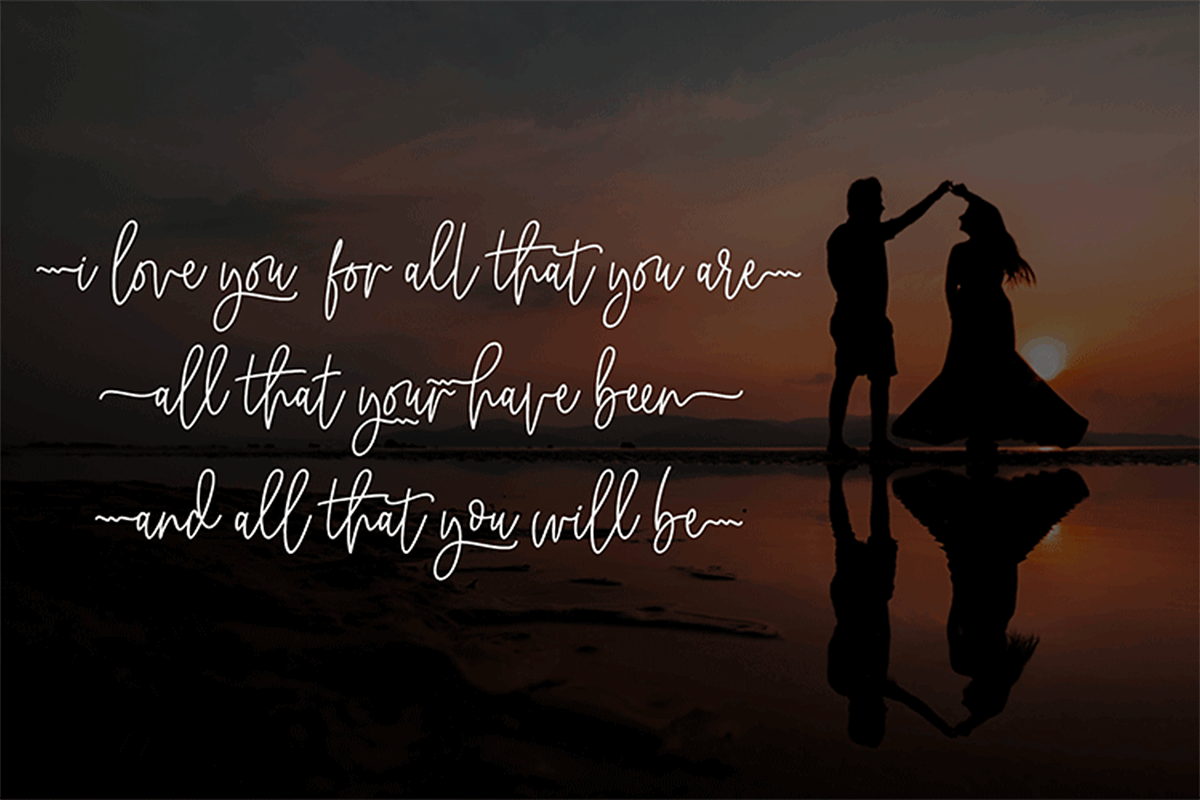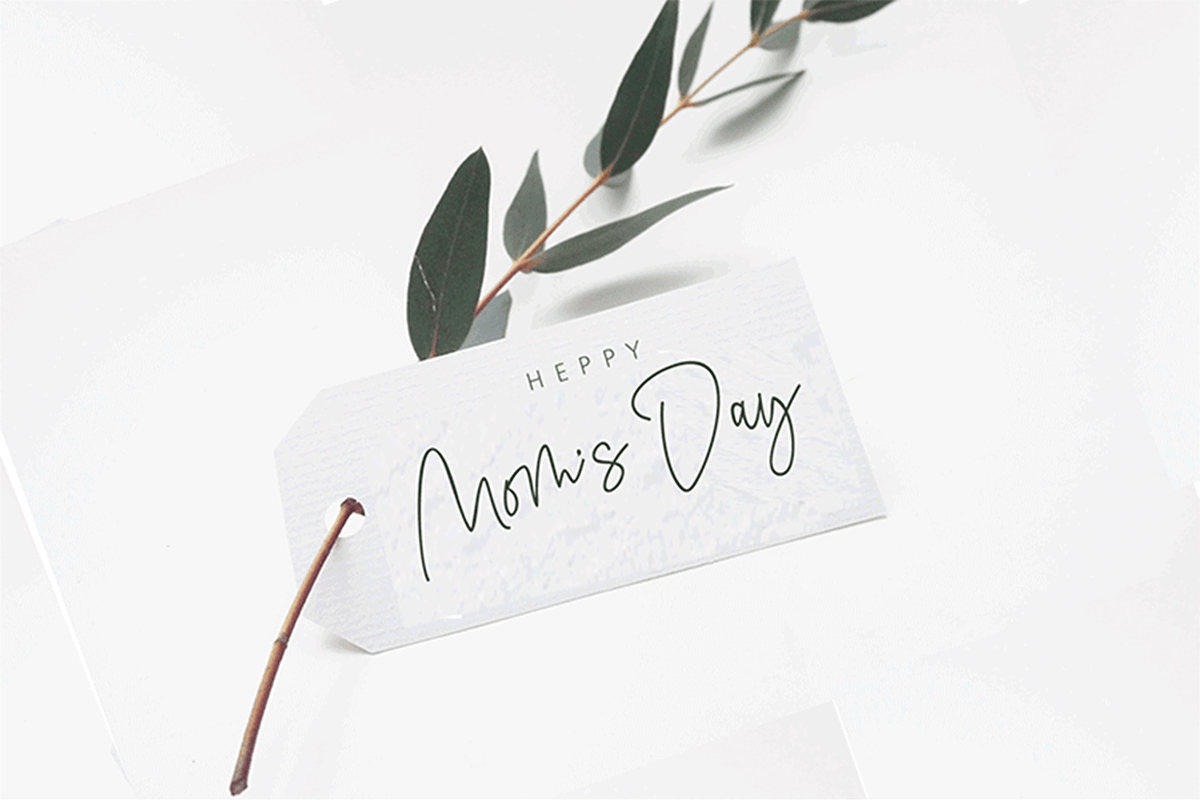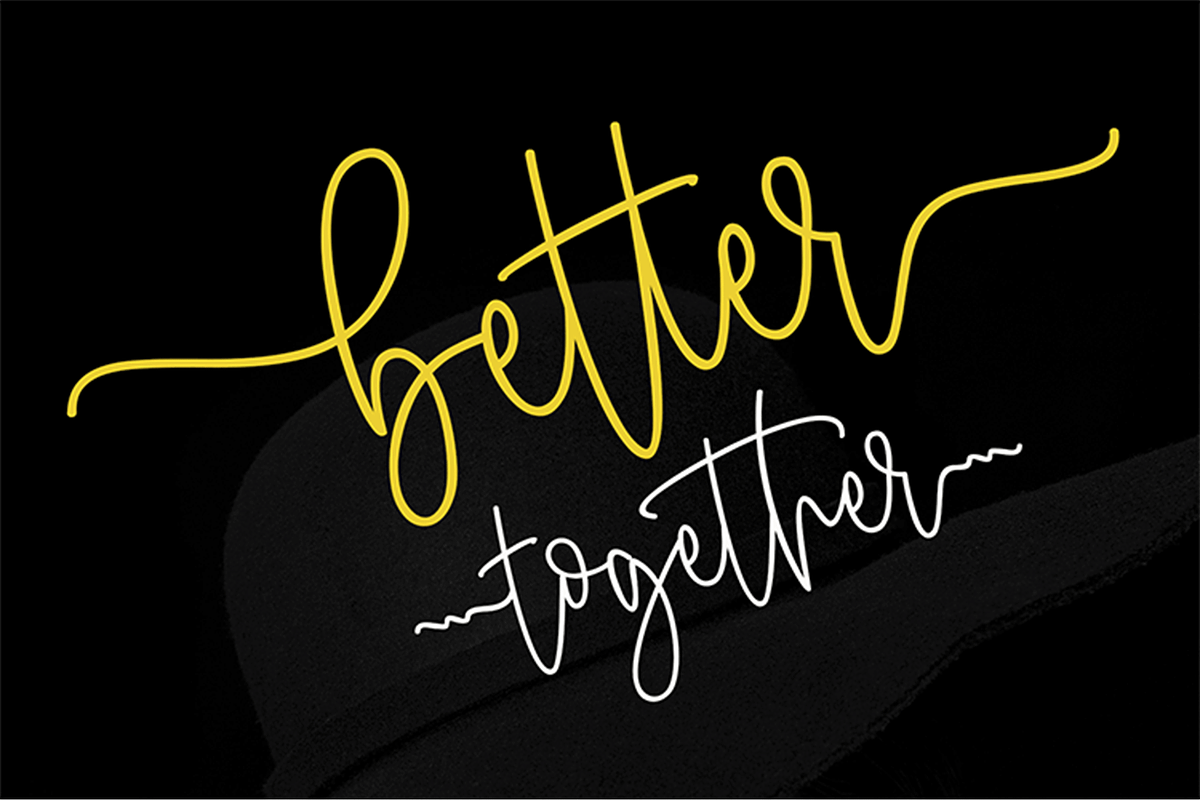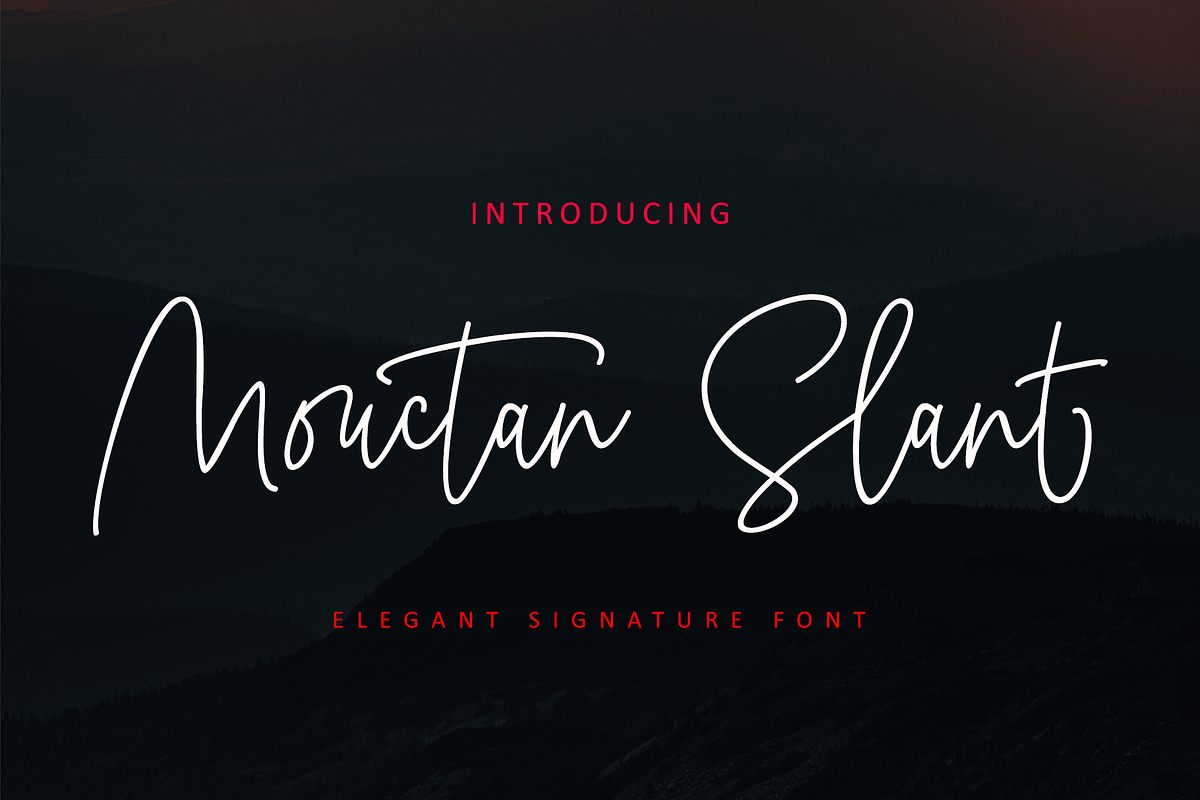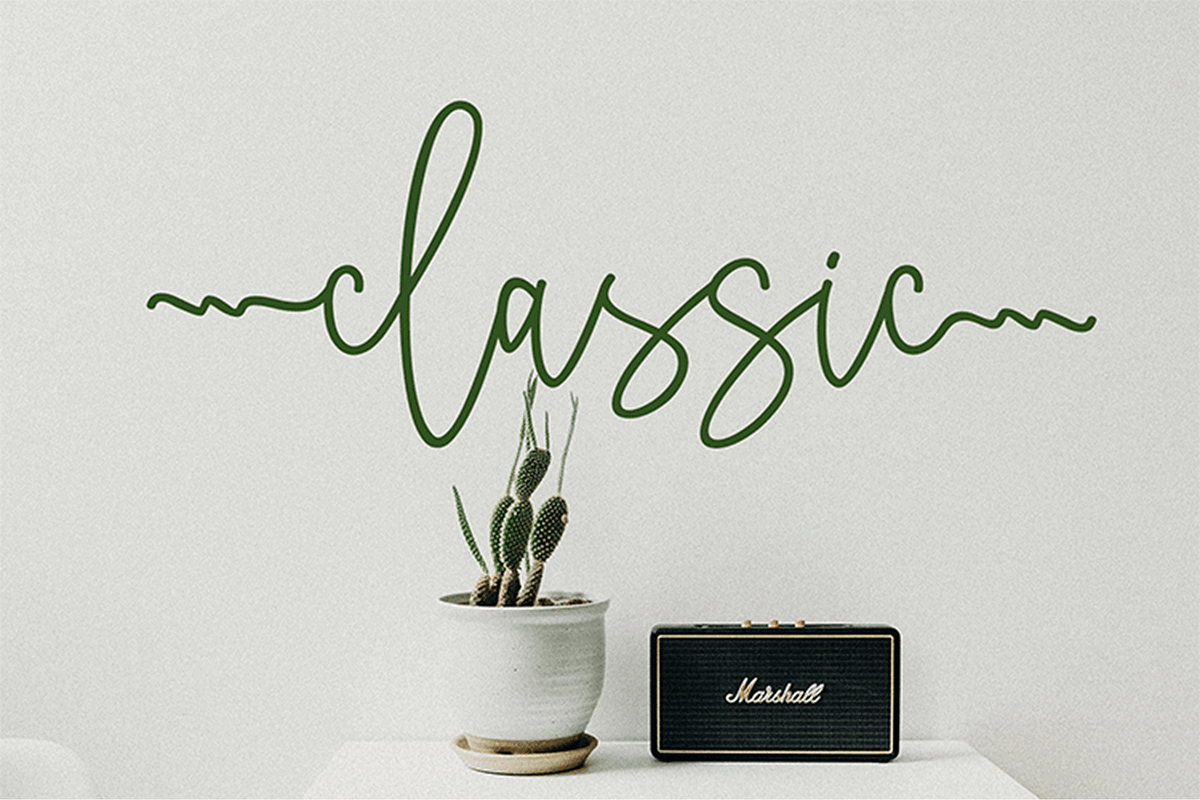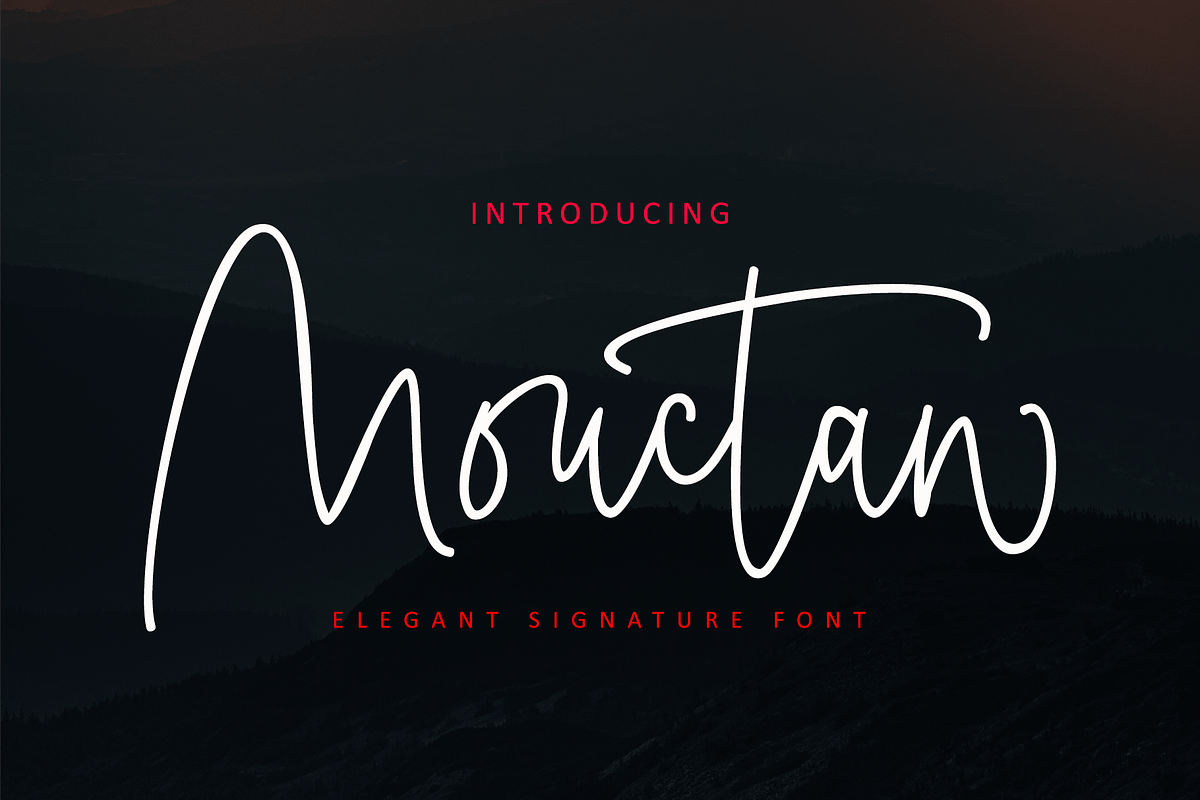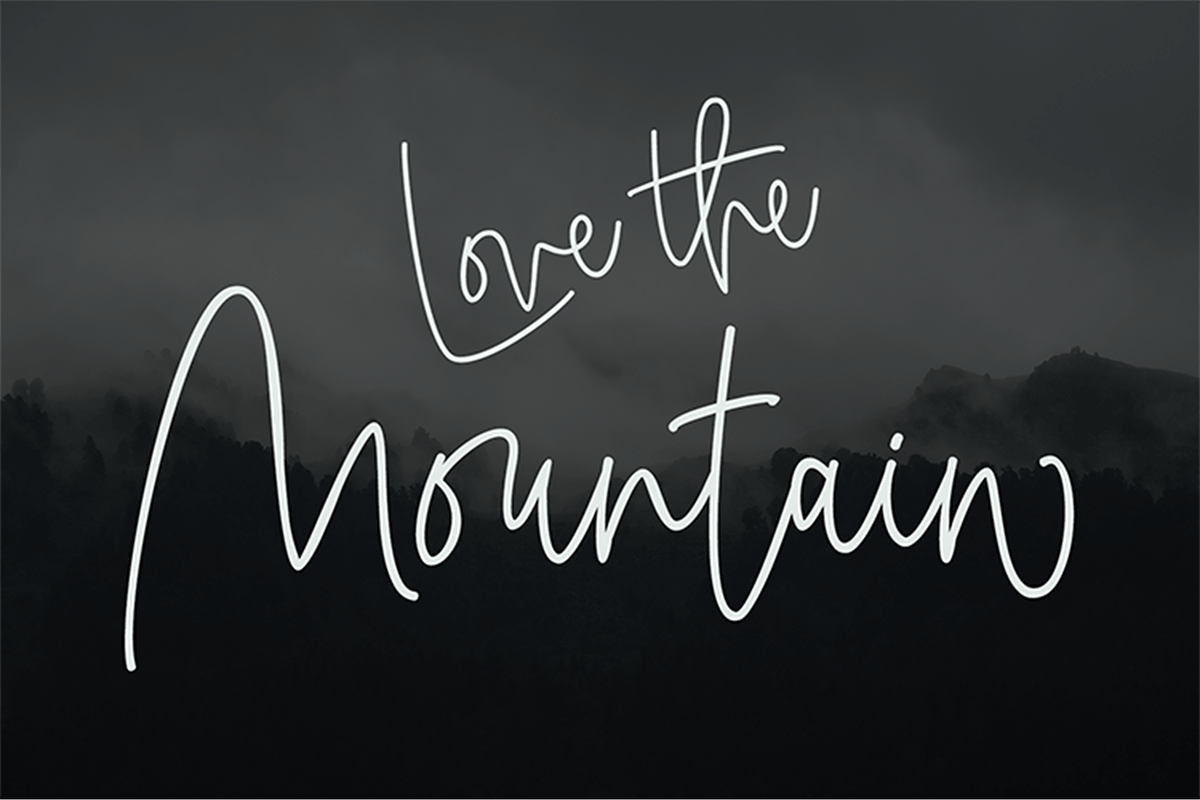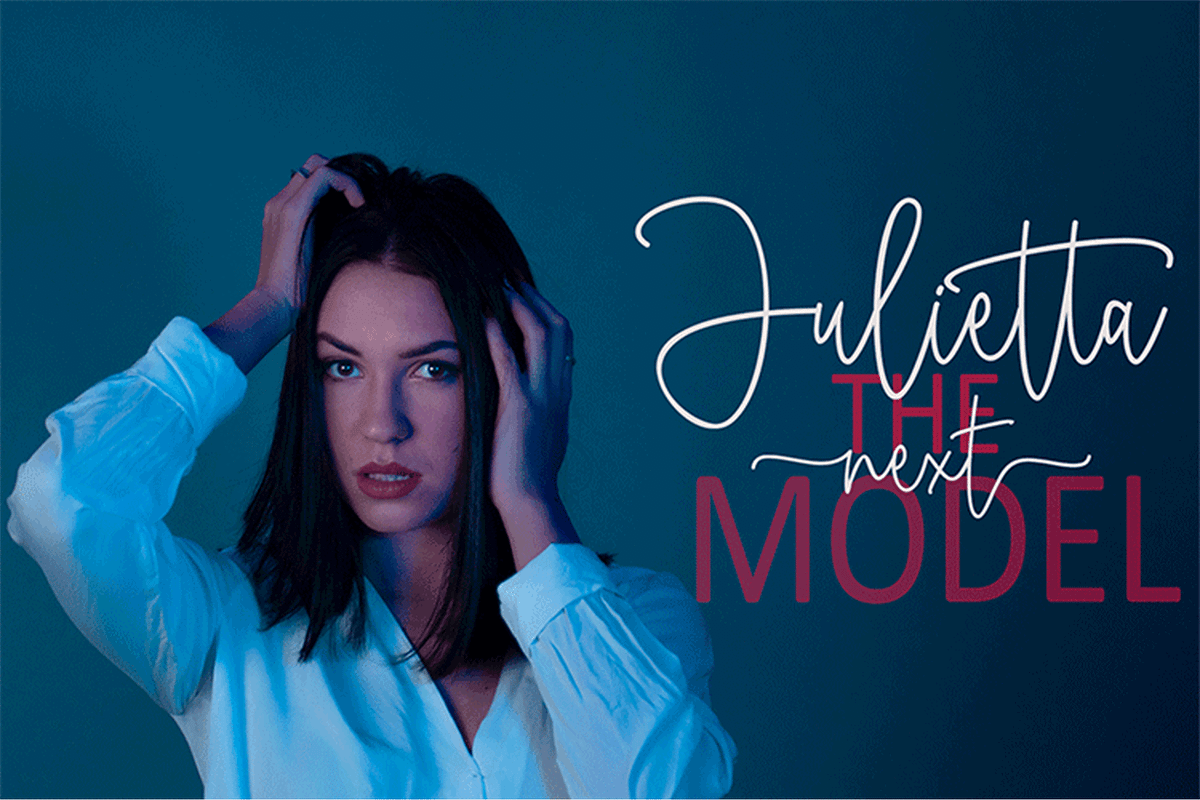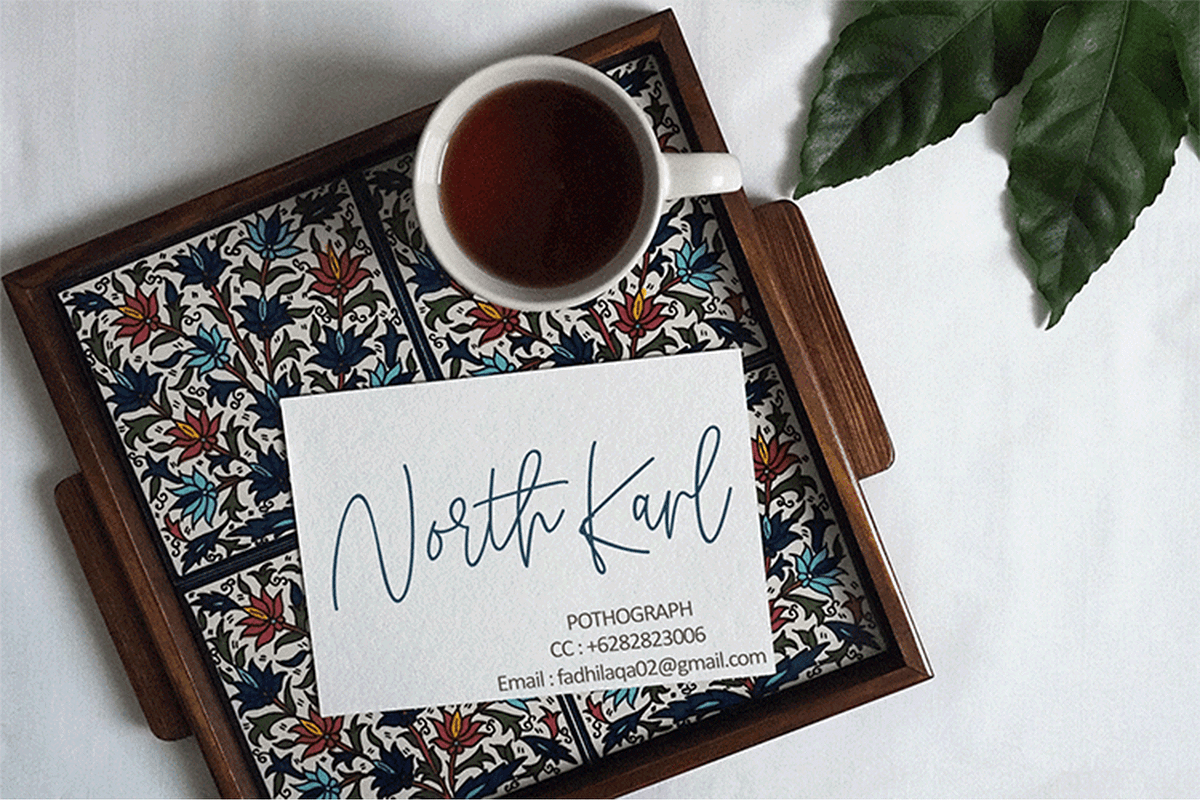
Mouctan Duo
INTRODUCING, Mouctan Duo, is another lovely modern script, signature and mono line font, which is combining the style of classic signature with an modern style. combines from copperplate to contemporary typeface with a dancing baseline, modern and elegant touch. including alternates, and ligatures.